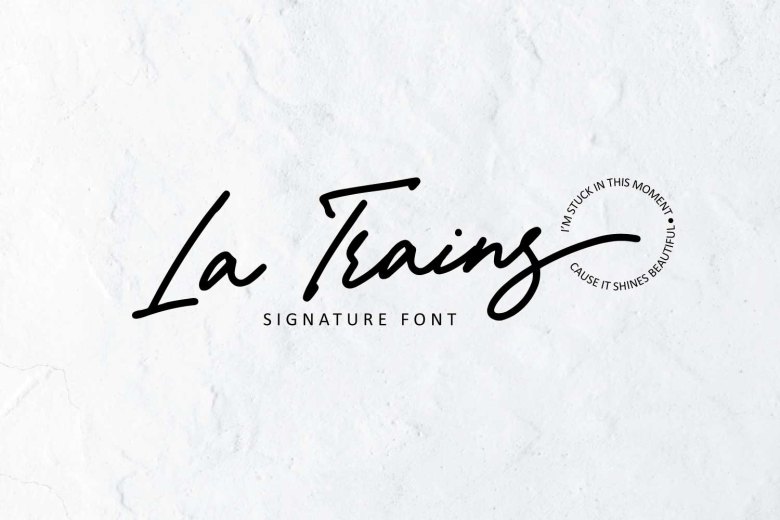
La Trains Font
La Trains is a nice light handwritten font that has a unique look as well as the striking effect. Whether it is in your brochure or sign, it will give luxury! This font is PUA encoded, so you can access to all of its amazing glyphs and ligatures with ease!
La Trains Handwritten Font